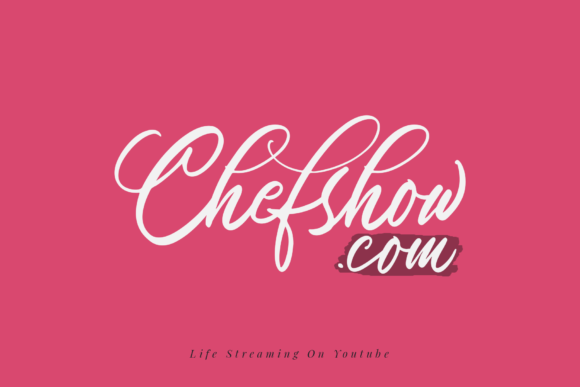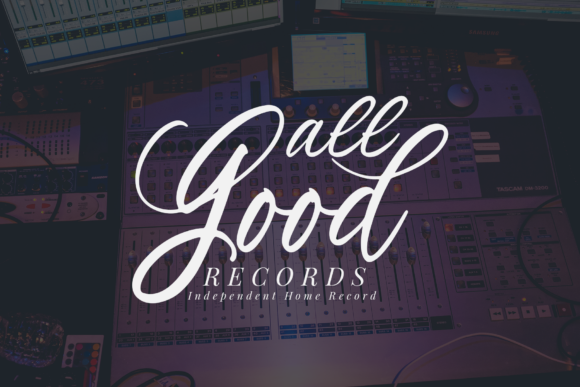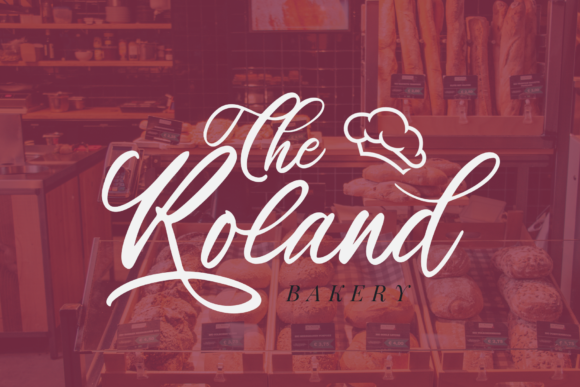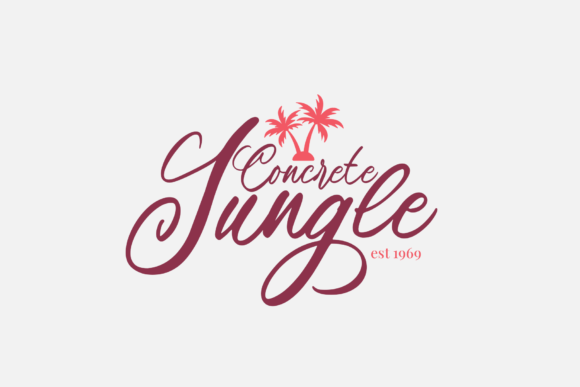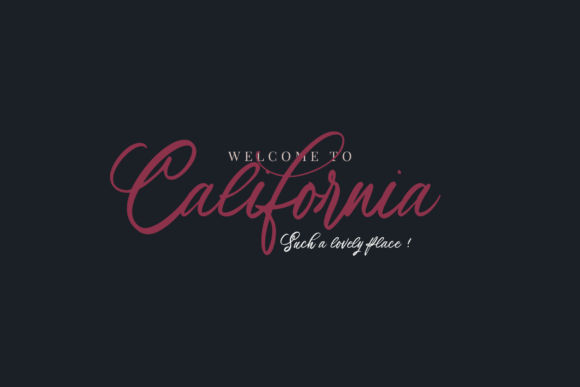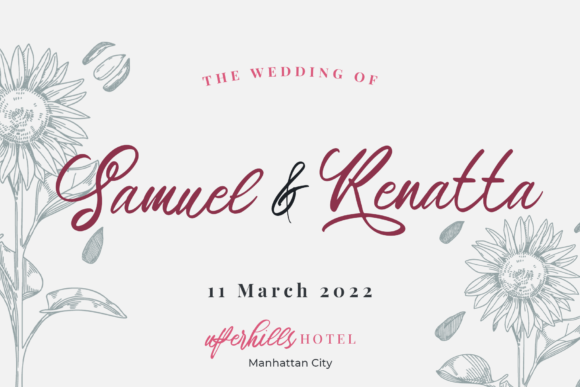
Gifolgh Font: Elevate Your Designs with Delicate Elegance
In the world of typography, fonts play a crucial role in bringing creative ideas to life. For designers and crafters, finding the perfect font can be a daunting task. However, if you’re looking for a delicate, elegant, and flowing handwritten font, look no further than Gifolgh. This beautiful font is designed to add a touch of sophistication and whimsy to your designs, making it an excellent addition to your typographic arsenal.
The Characteristics of Gifolgh Font
Gifolgh is a carefully crafted font that boasts beautiful and well-balanced characters. Its delicate and elegant design makes it perfect for a wide range of creative projects, from wedding invitations and branding materials to digital content and craft projects. The font’s flowing lines and curves create a sense of movement and fluidity, adding a touch of dynamism to your designs.
Why Choose Gifolgh Font?
So, what sets Gifolgh apart from other fonts? Here are just a few reasons why designers and crafters love this beautiful font:
- Versatility: Gifolgh’s elegant design makes it suitable for a wide range of projects, from formal events to casual digital content.
- Readability: The font’s clear and well-balanced characters ensure that your text is easy to read, even at smaller sizes.
- Uniqueness: Gifolgh’s delicate and flowing design makes it stand out from more traditional fonts, adding a touch of personality to your designs.
How to Use Gifolgh Font in Your Designs
Adding Gifolgh to your designs is easy. Here are a few tips to get you started:
- Pair it with bold fonts: Combine Gifolgh with bold, sans-serif fonts for a striking contrast that adds visual interest to your designs.
- Use it for headings: Gifolgh’s elegant design makes it perfect for headings and titles, adding a touch of sophistication to your designs.
- Add it to your branding: Use Gifolgh as a primary font or accent font to add a touch of whimsy and personality to your brand.
Gifolgh’s versatility and elegance make it perfect for a wide range of creative projects. Here are a few ideas to get you started:
- Wedding invitations: Add a touch of romance and elegance to your wedding invitations with Gifolgh.
- Branding materials: Use Gifolgh to create beautiful and unique branding materials, such as business cards and brochures.
- Digital content: Add a touch of personality to your digital content, such as blog posts and social media graphics, with Gifolgh.
- Craft projects: Use Gifolgh to add a touch of elegance to your craft projects, such as handmade cards and scrapbooking.
In conclusion, Gifolgh is a beautiful and elegant handwritten font that is perfect for designers and crafters looking to add a touch of sophistication and whimsy to their designs. With its delicate and flowing design, Gifolgh is versatile and easy to use, making it suitable for a wide range of creative projects. Whether you’re looking to create wedding invitations, branding materials, or digital content, Gifolgh is an excellent choice. So why not give it a try and see how it can elevate your designs?